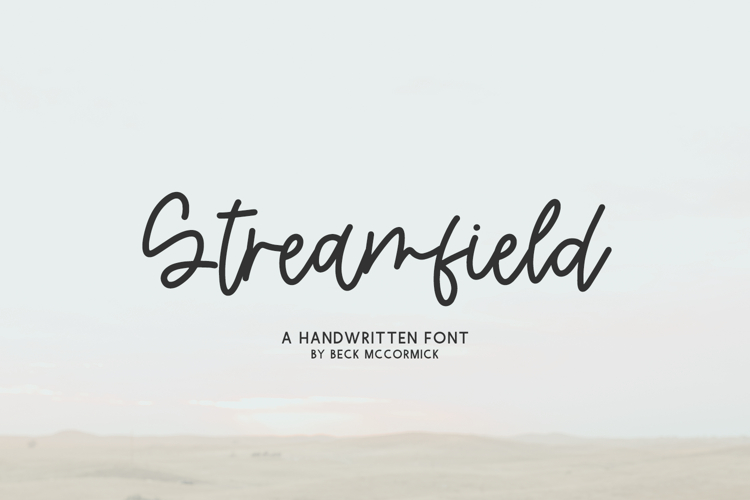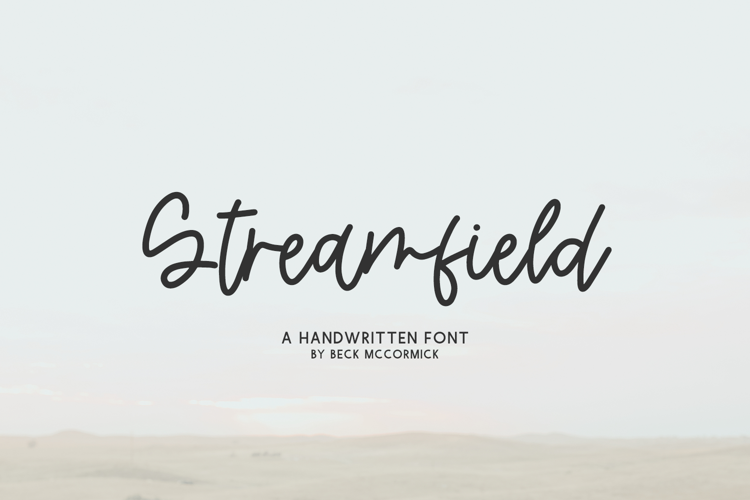
Introducing Streamfield Script, a modern handwritten monoline script.
Streamfield Script is best for:
- feminine, crafty projects with your Cricut or Silhouette machine, or your SVG design business
- farmhouse decor and crafts
- digital planners & apps like Goodnotes
- website design + website accents, blog design
- feminine graphic tee shirt design & other apparel